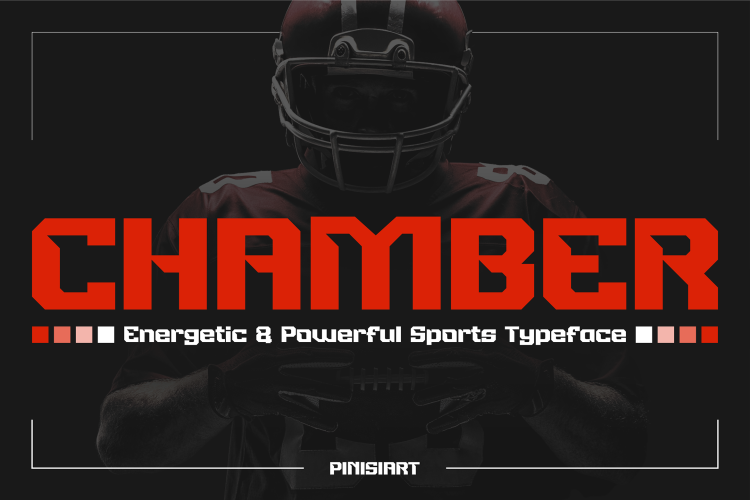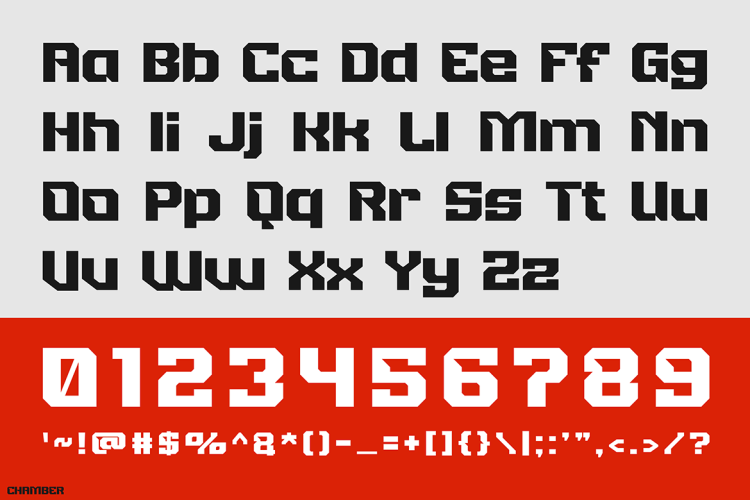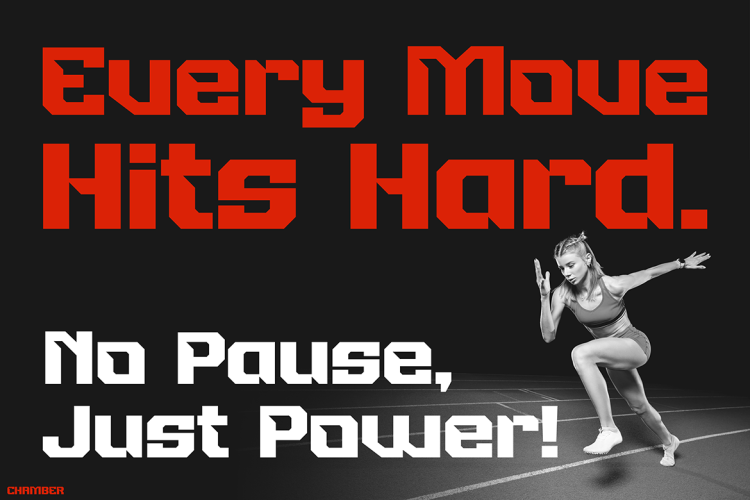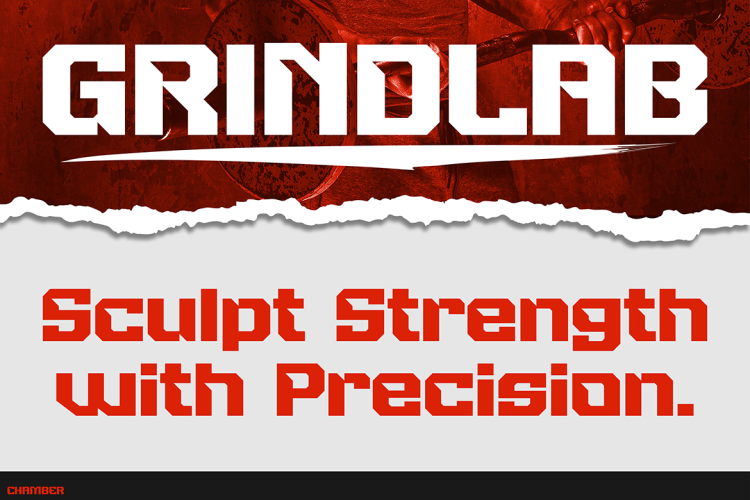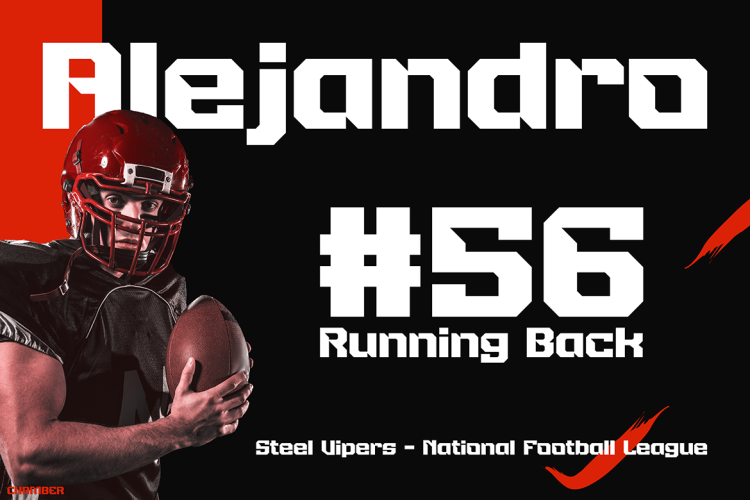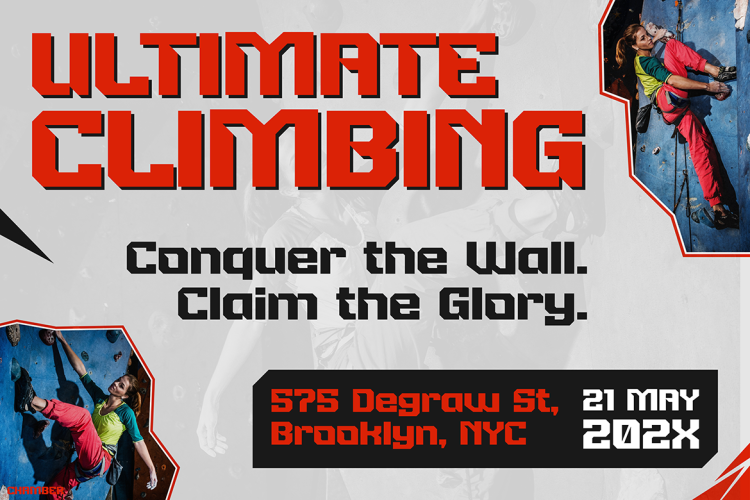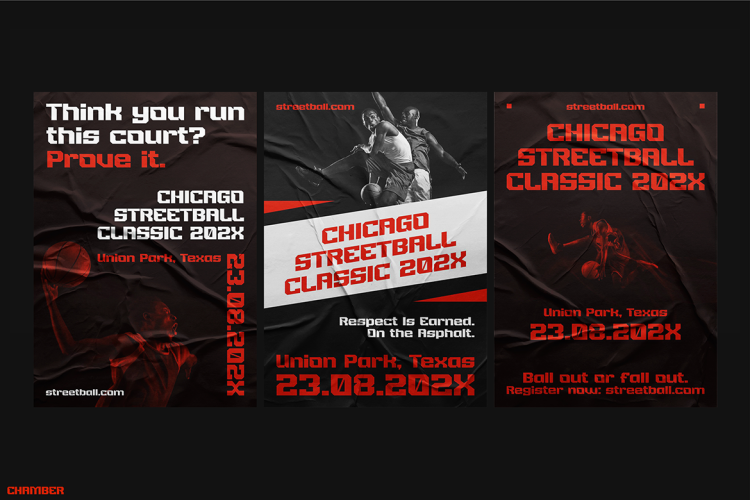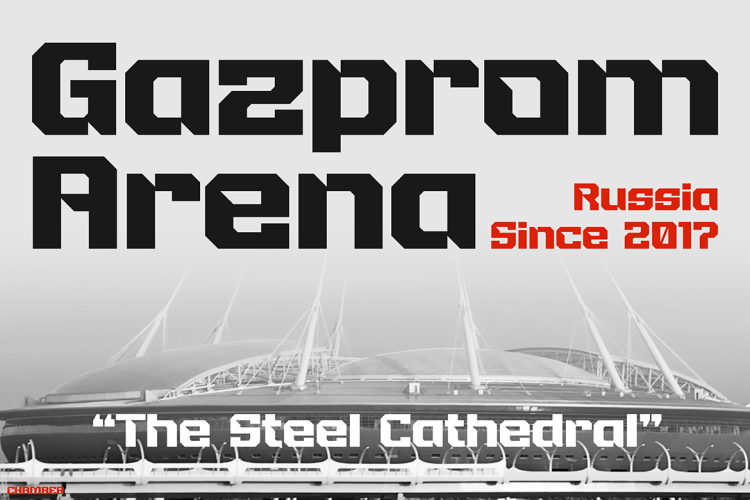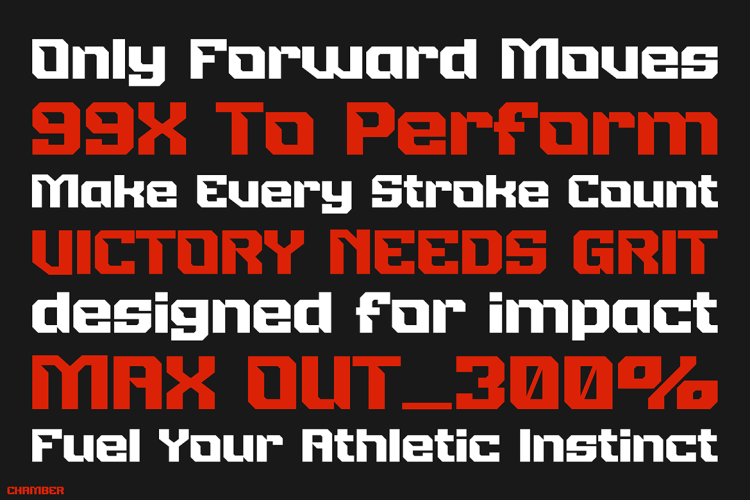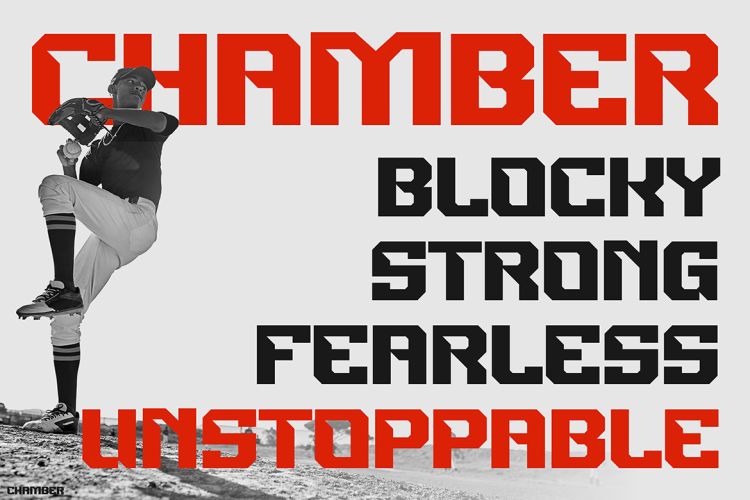
Sport Fonts CHAMBER โ Bold Energy in Every Letter
Sport Fonts CHAMBER is a bold, powerhouse typeface made for the heart of competition. Right from the first glance, it grabs attention with sharp angles, wide proportions, and heavy strokes โ ideal for making a bold statement on posters, jerseys, or gym branding. Not just a font, CHAMBER is a visual tool that speaks power, energy, and momentum.
What sets CHAMBER apart is its perfect balance of sporty modernism and sharp readability. Thanks to its square structure and consistent weight, it delivers a clean yet aggressive look. As a result, it performs well in both print and digital formats. Whether youโre creating signage, ads, or merchandise, CHAMBER helps your message stand out clearly.
Additionally, every letter in CHAMBER feels designed for movement. The tight spacing and high-impact construction give it a powerful rhythm. Therefore, it works exceptionally well in fast-paced sports settings, energetic branding, or promotional content that demands attention.
Sport Fonts CHAMBER is an excellent choice for sports branding, fitness challenges, esports visuals, or athletic apparel design. If you’re a designer working with professional or amateur teams, this font delivers presence and clarity. Likewise, coaches, personal trainers, and gym owners can use it to boost visual impact in posters, merchandise, or digital promos.
Furthermore, content creators and YouTubers focused on sports or motivation will appreciate CHAMBERโs ability to make every title pop. Itโs also great for brands targeting athletes and action-driven audiences. Whether it’s used for signage, gear, or social media graphics, CHAMBER gives your text a competitive edge.
Make Your Message Unstoppable